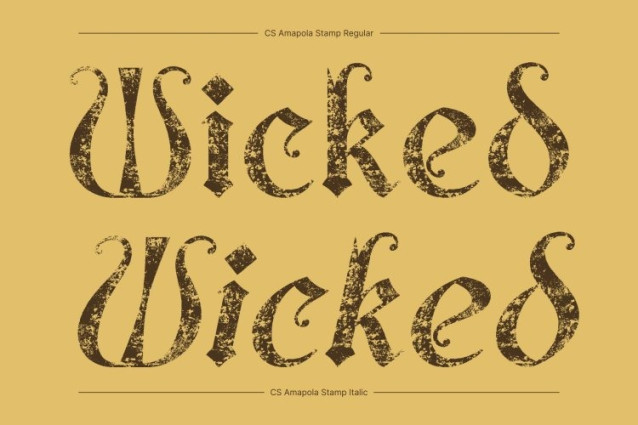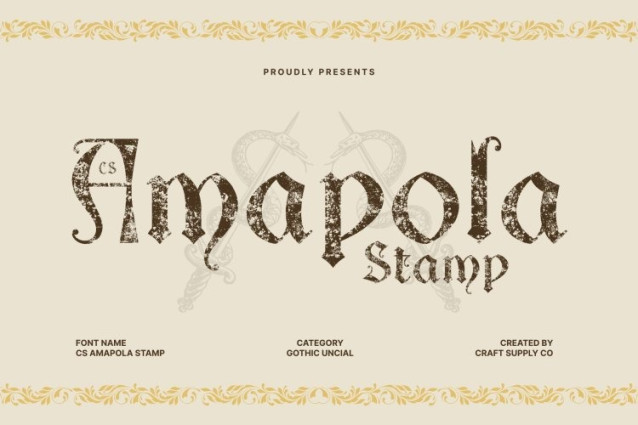
CS Amapola Stamp Font
CS Amapola Stamp Font This is a display font that fuses the smooth, rounded curves of classic uncial letterforms with the bold intensity of gothic design. Its distinctive structure reflects historical typography, combining softness and strength to create a letter style that feels ancient, expressive, and visually striking.
Vintage Stamp Texture with Medieval Soul
The stamped texture adds an aged, handcrafted quality that enhances the font’s historical atmosphere. Subtle imperfections and worn details give this font an authentic vintage character, evoking old manuscripts, medieval prints, and traditional lettering carved by time. This texture brings warmth, depth, and artistic personality to every character.
Perfect for Fantasy and Historical Themes
Designed for fantasy-inspired and historical projects, this font shines in book covers, vintage logos, editorial layouts, and decorative displays. Its gothic uncial style conveys mystery, tradition, and storytelling power making it ideal for designs that seek a dramatic and old-world presence.
Timeless Elegance with Artistic Expression
Balancing classic heritage with bold visual identity, this font delivers timeless elegance infused with creative texture. Its unique blend of uncial flow, gothic strength, and stamped vintage detail makes it a versatile display font for designers who want to evoke history, fantasy, and artistic authenticity in a modern design context.